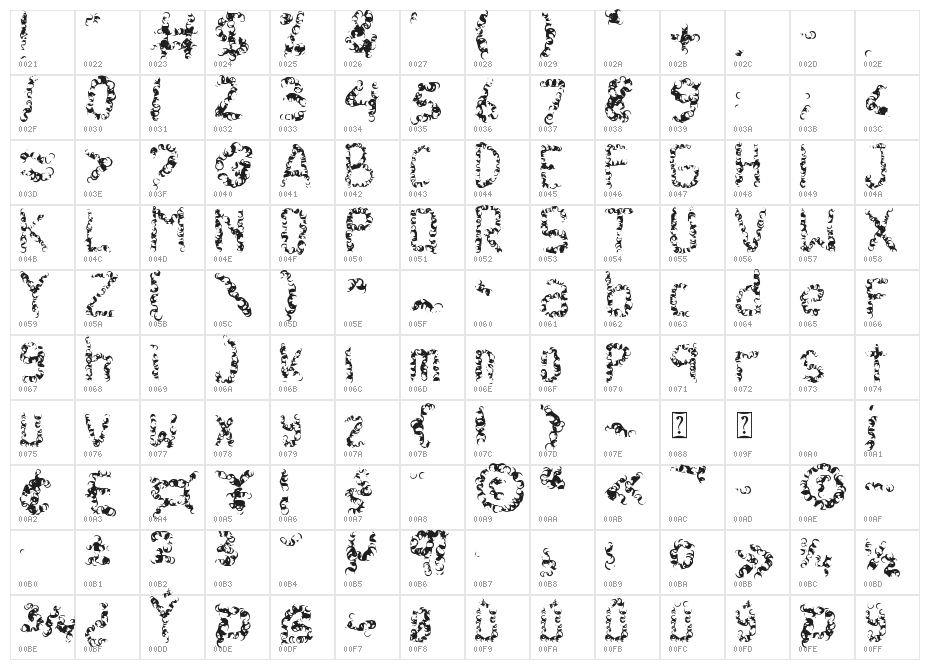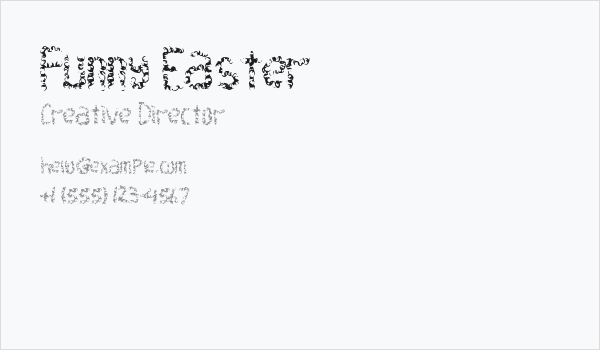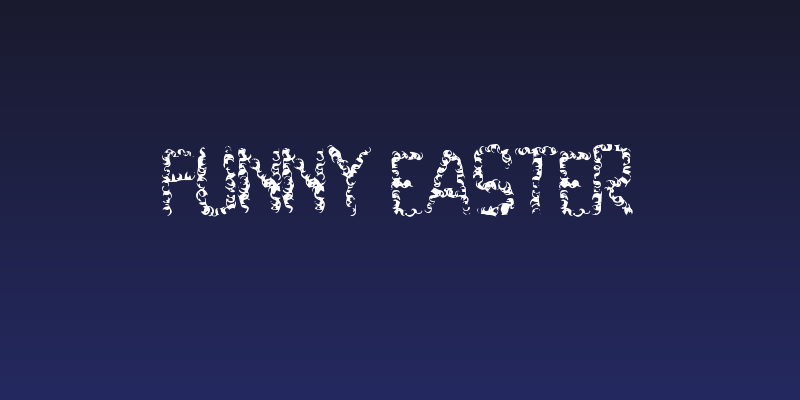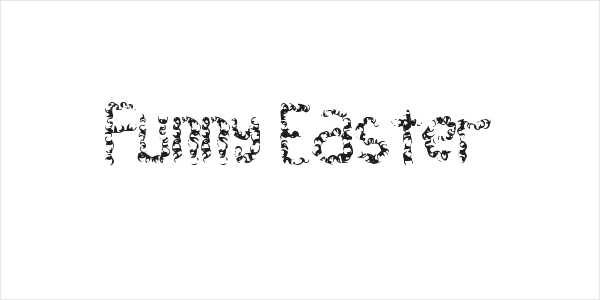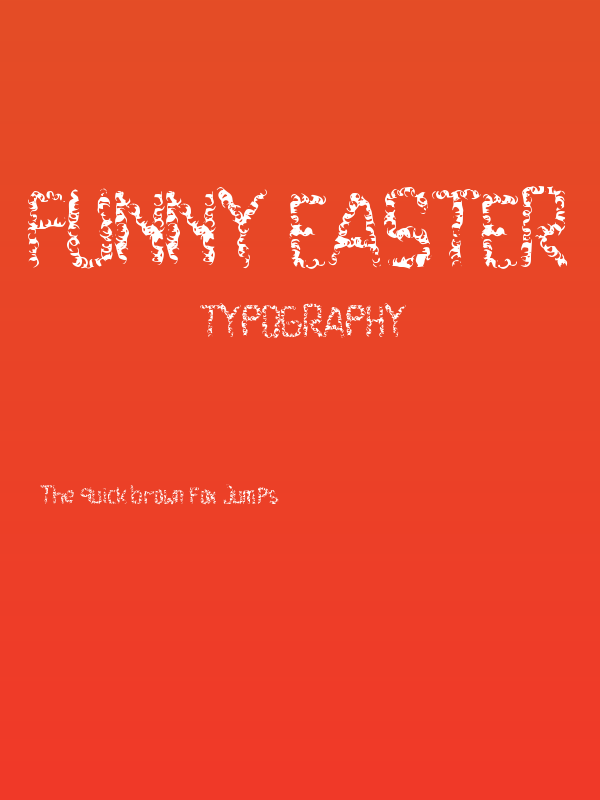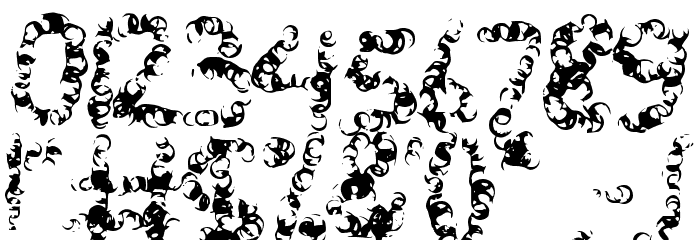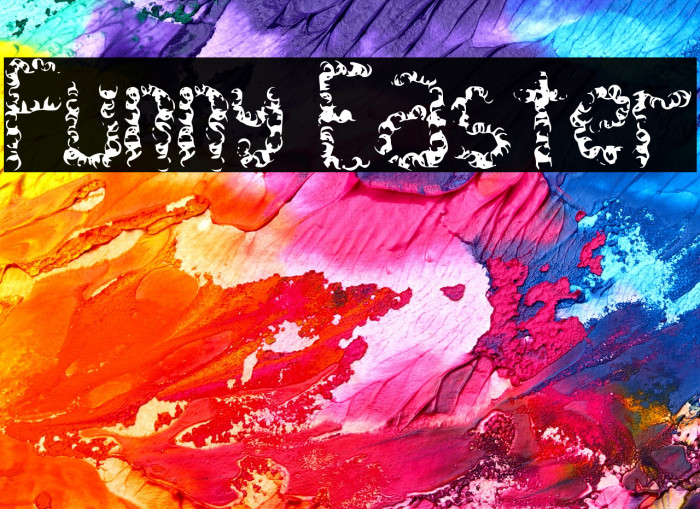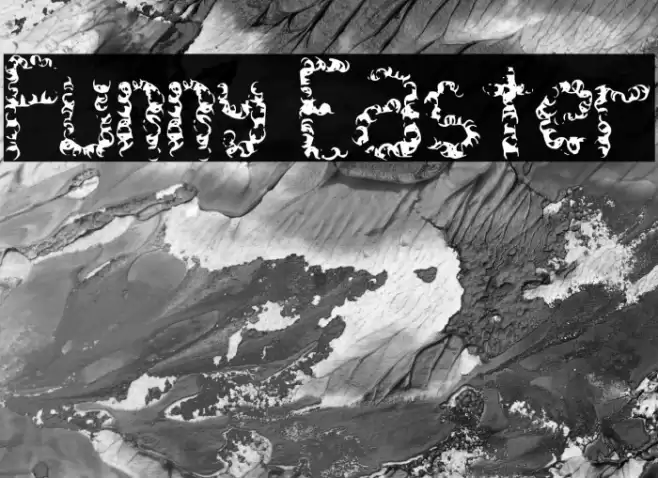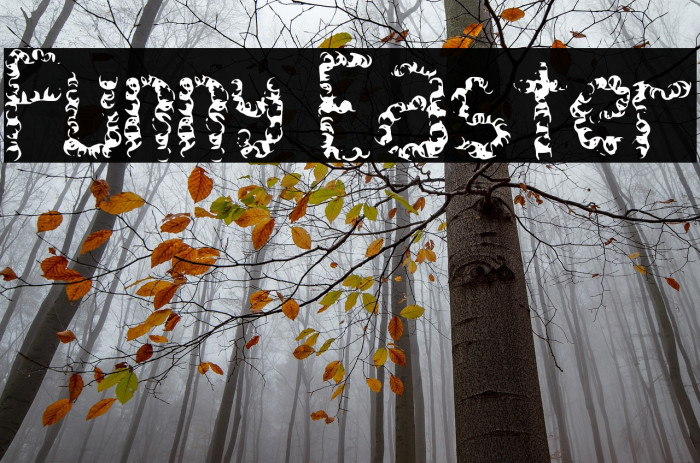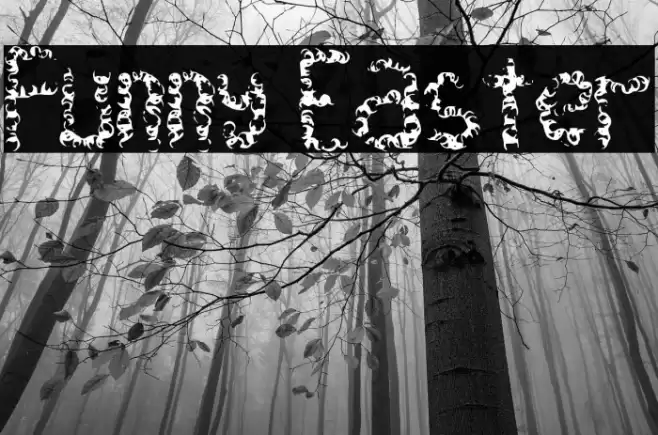
Funny Easter Font
Funny Easter Description
This whimsical and playful font is characterized by its unique design, where each letter is adorned with intricate, swirling patterns reminiscent of festive decorations. The uppercase and lowercase letters maintain a consistent style, with the embellishments creating a sense of movement and energy. The numbers and special characters follow the same decorative theme, ensuring a cohesive look across all elements. The font's distinctiveness makes it stand out, offering a lively and cheerful aesthetic that is perfect for creative projects.
| Overall Style | Decorative |
| Use Case | Headlines, Logos |
| Proposed Projects | Ideal for holiday-themed graphics, children's book covers, party invitations, and playful branding projects. |